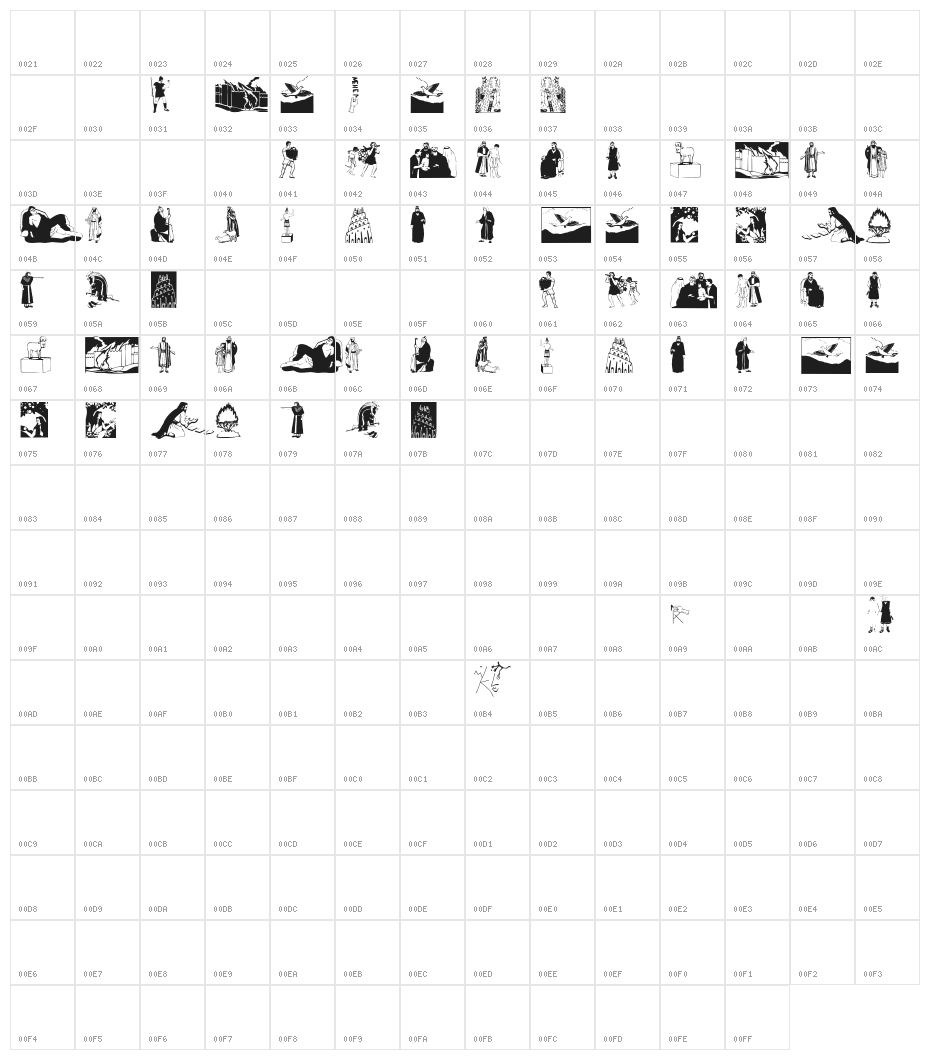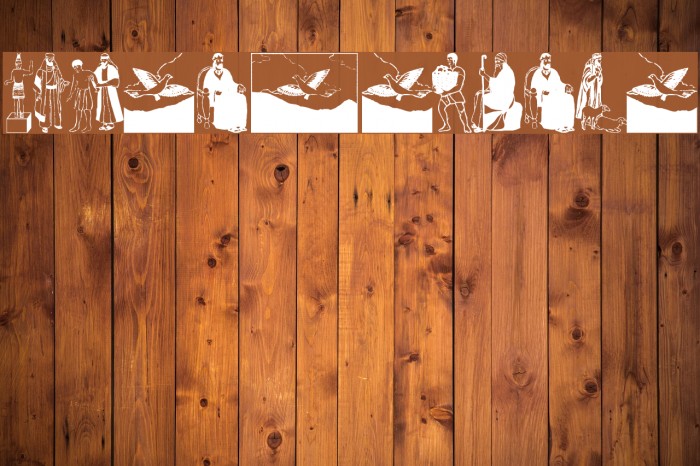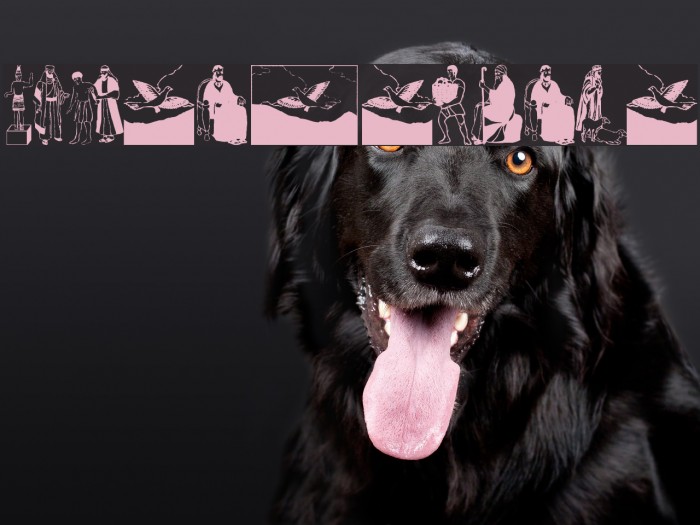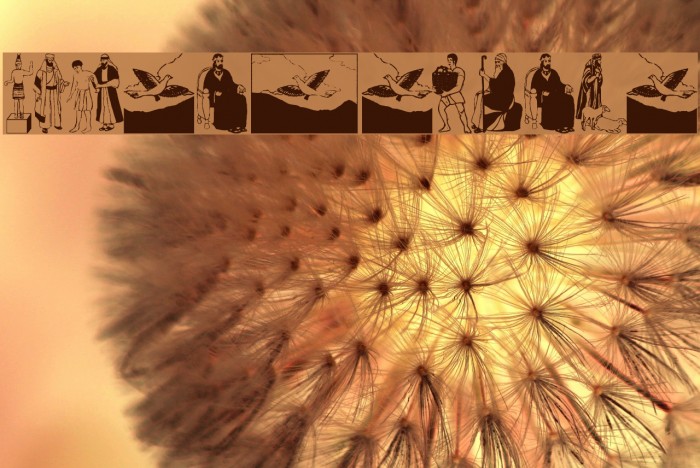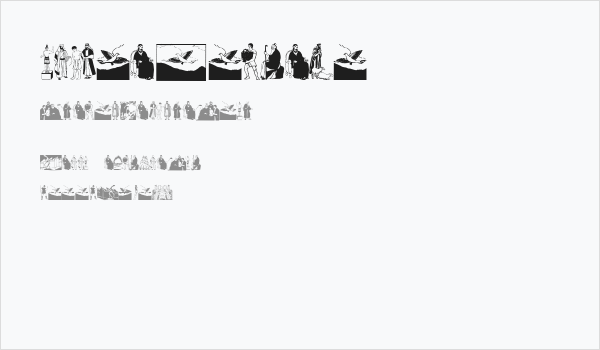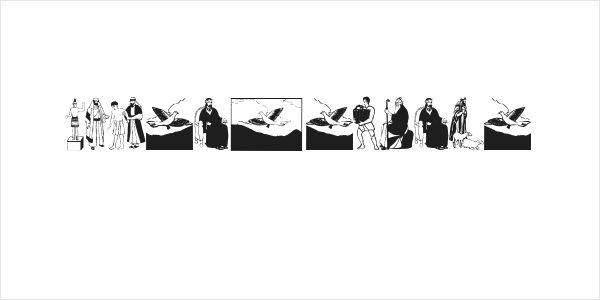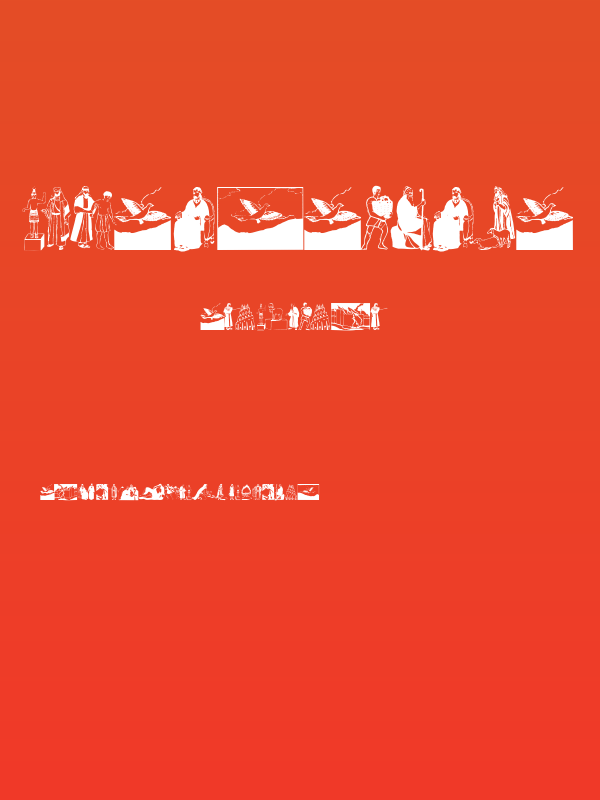
OldTestament Font
OldTestament Description
A highly decorative, pictorial font where each character is represented by a detailed black-and-white illustration depicting scenes and figures from biblical or ancient stories, with strong narrative and visual storytelling elements.
| Overall Style | Decorative, Narrative, Thematic |
| Use Case | Display, Titles, Themed graphics |
| Proposed Projects | Religious publications, educational materials, themed posters, children's books, event invitations, historical displays. |